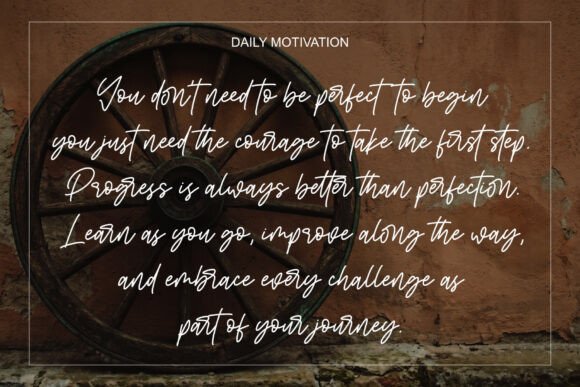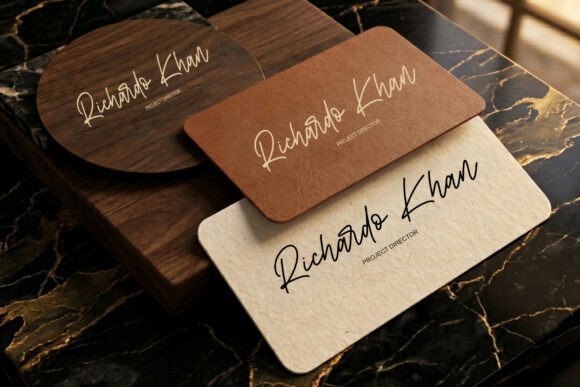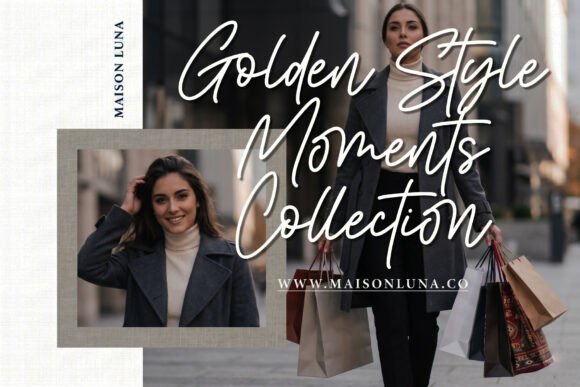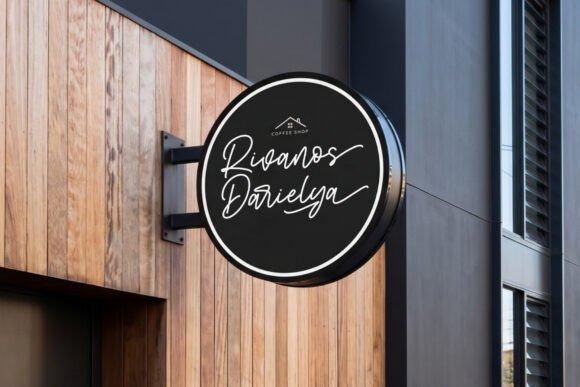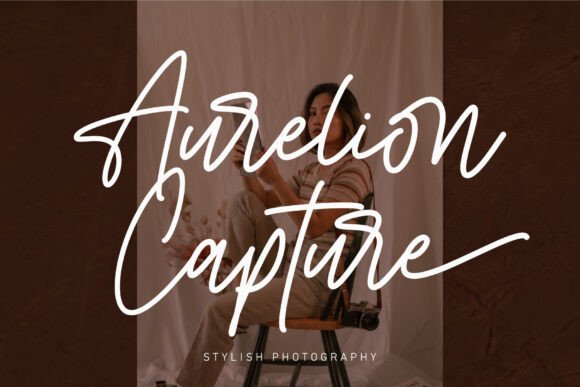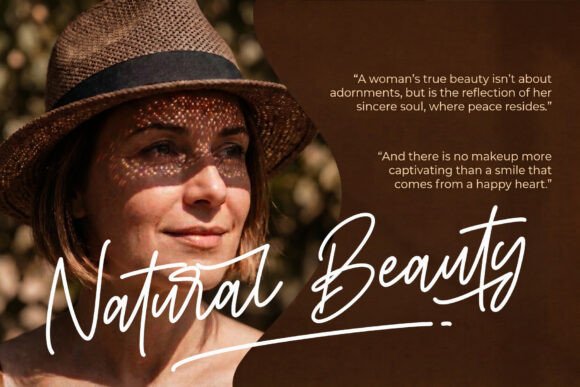
Bumgreks Signature Font: Elevate Your Designs with Elegance and Sophistication
In the world of typography, a well-crafted font can make all the difference in elevating a design from ordinary to extraordinary. Bumgreks Signature is a stunning example of a stylish and elegant handwritten script font that can add a touch of sophistication and authenticity to any project. With its natural flowing stroke and modern signature style, this font is perfect for designers and crafters looking to bring a luxurious handwritten feel to their work.
A Font Designed for Sophistication
Bumgreks Signature is a meticulously designed font that captures the essence of refinement and poise. Its smooth curves, balanced proportions, and expressive letterforms work in harmony to create a clean yet artistic look that is both timeless and versatile. Whether you’re working on a branding project, designing a logo, or creating wedding materials, this font is sure to impress with its elegant and refined aesthetic.
One of the standout features of Bumgreks Signature is its incredible versatility. This font is perfectly suited for a wide range of design applications, including:
- Branding: Create a lasting impression with a custom logo or brand identity that exudes sophistication and elegance.
- Logos: Design a unique and memorable logo that stands out from the crowd with Bumgreks Signature’s stylish and modern script.
- Wedding Designs: Add a touch of romance and luxury to your wedding materials, including invitations, menus, and programs.
- Social Media Content: Elevate your social media presence with eye-catching graphics and posts that showcase your brand’s personality.
- Product Packaging: Create premium packaging that stands out on store shelves and reflects your brand’s high-end aesthetic.
- Editorial Layouts: Add a touch of sophistication to your high-end editorial layouts, including magazines, catalogs, and more.
A Timeless Aesthetic for Digital and Print Designs
Bumgreks Signature delivers a timeless aesthetic that enhances both digital and print designs with a refined and personal touch. Its clean and artistic look ensures that your designs will remain relevant and stylish for years to come, making it an excellent investment for designers and crafters.
Key Features of Bumgreks Signature
- Natural Flowing Stroke: Bumgreks Signature features a natural flowing stroke that gives it a handwritten feel.
- Modern Signature Style: This font boasts a modern signature style that is both elegant and sophisticated.
- Smooth Curves: The font’s smooth curves and balanced proportions create a refined and polished look.
- Expressive Letterforms: Bumgreks Signature’s expressive letterforms add a touch of personality and flair to your designs.
In conclusion, Bumgreks Signature is a stylish and elegant handwritten script font that is sure to elevate your designs to new heights. With its natural flowing stroke, modern signature style, and timeless aesthetic, this font is perfect for designers and crafters looking to add a touch of sophistication and authenticity to their work. Whether you’re working on a branding project, designing a logo, or creating wedding materials, Bumgreks Signature is an excellent choice.